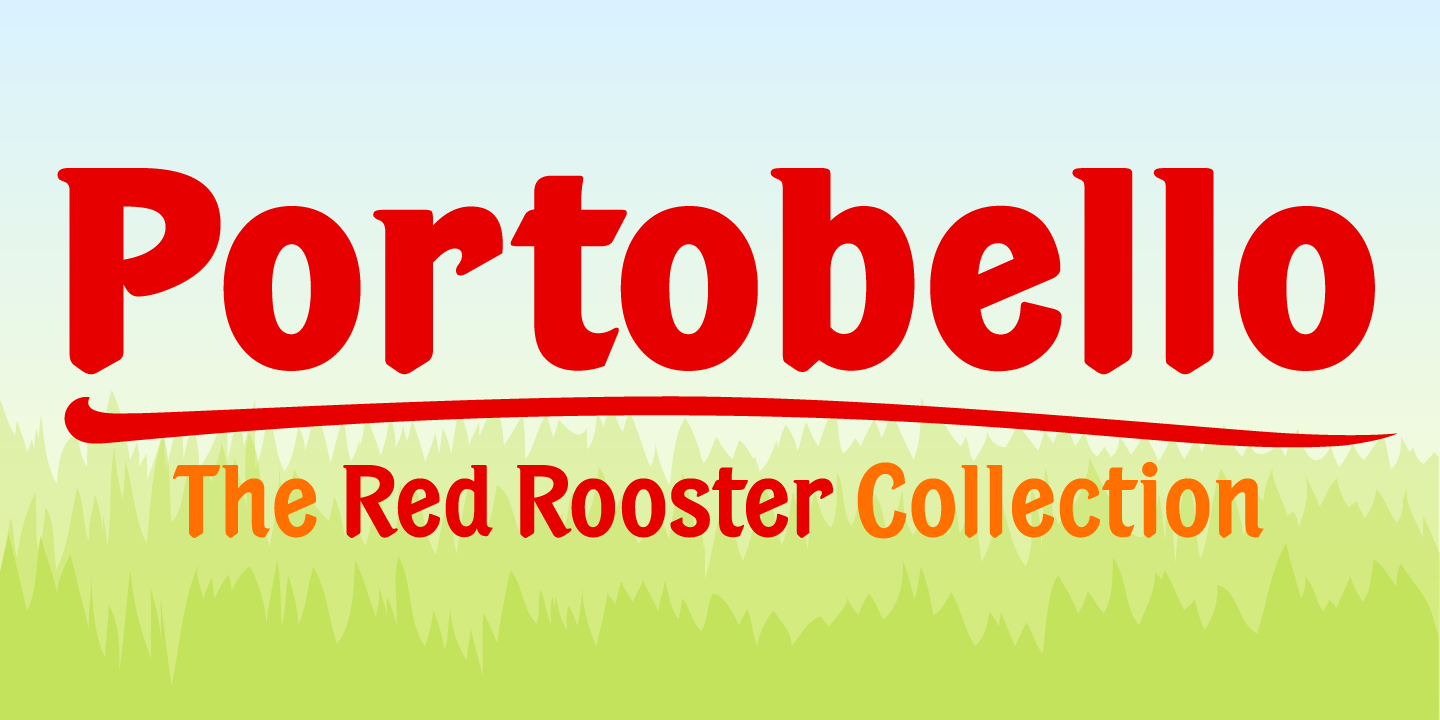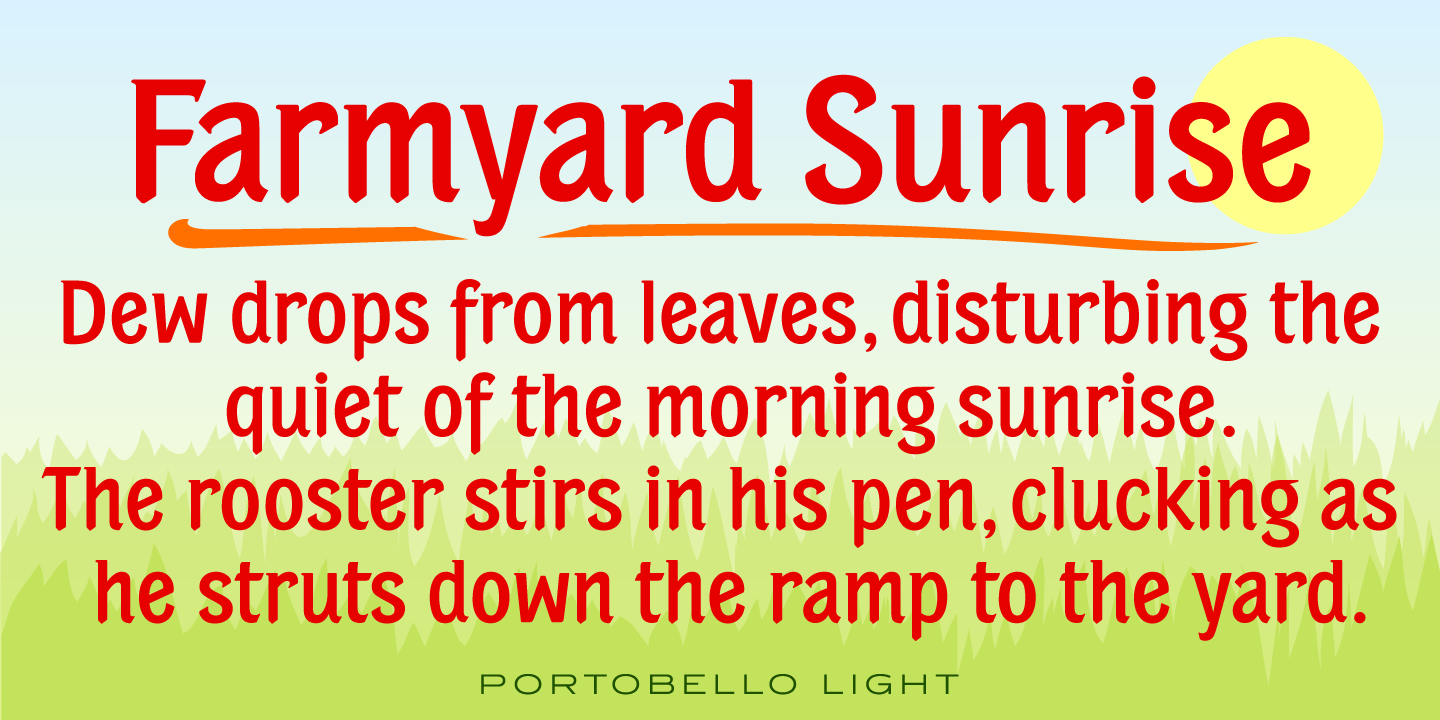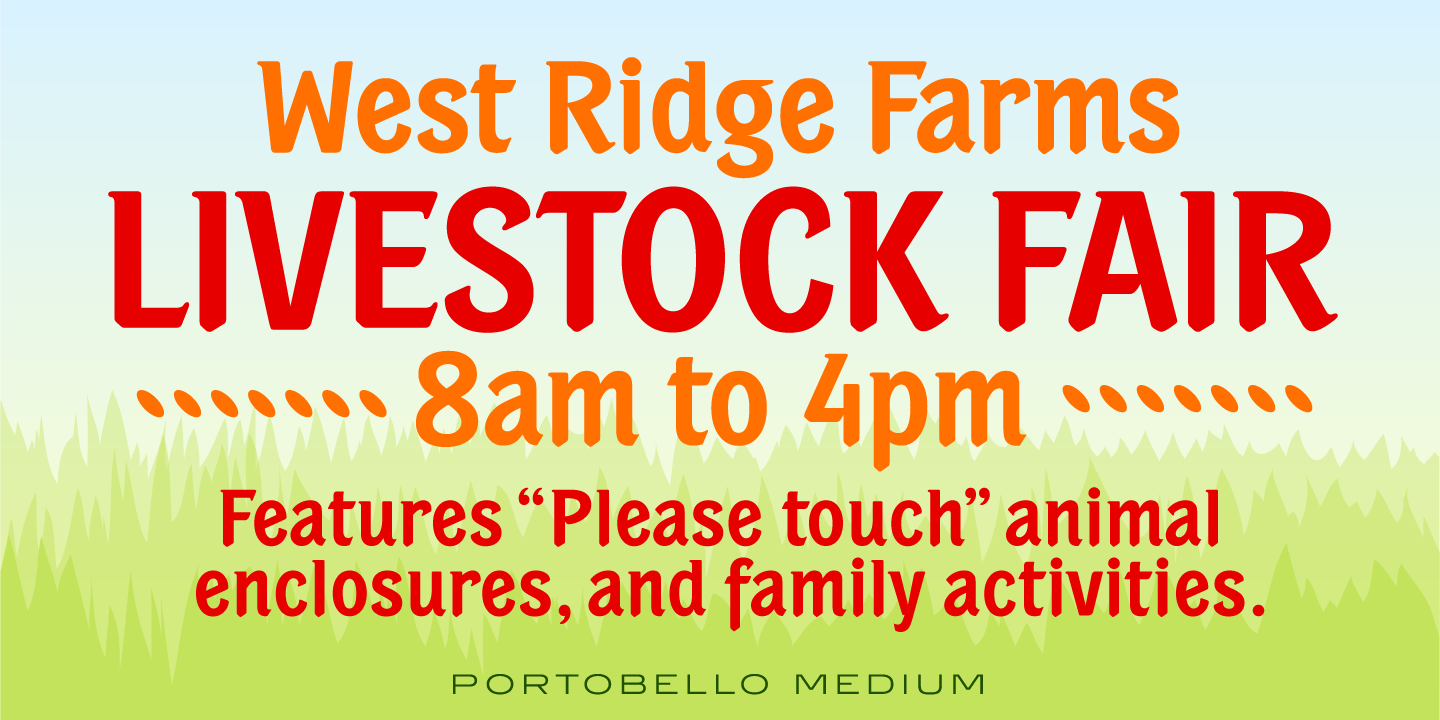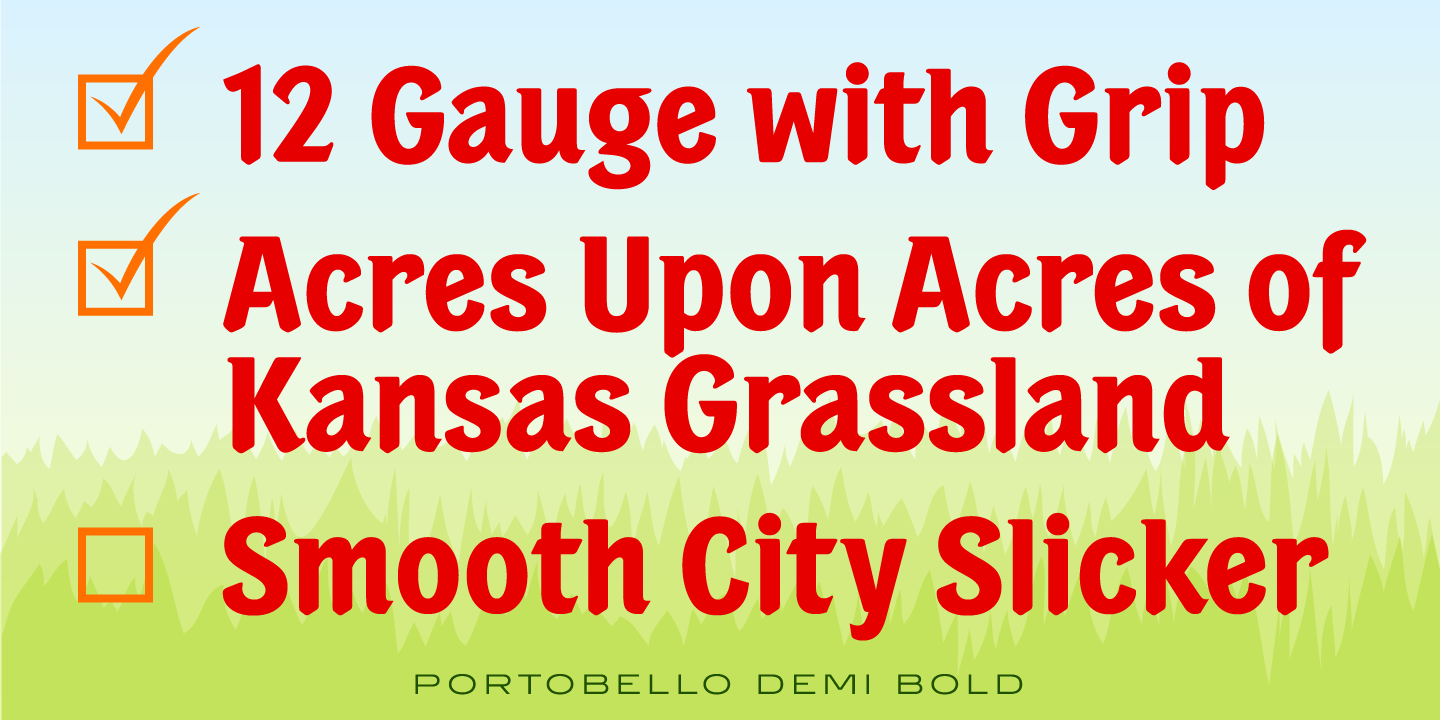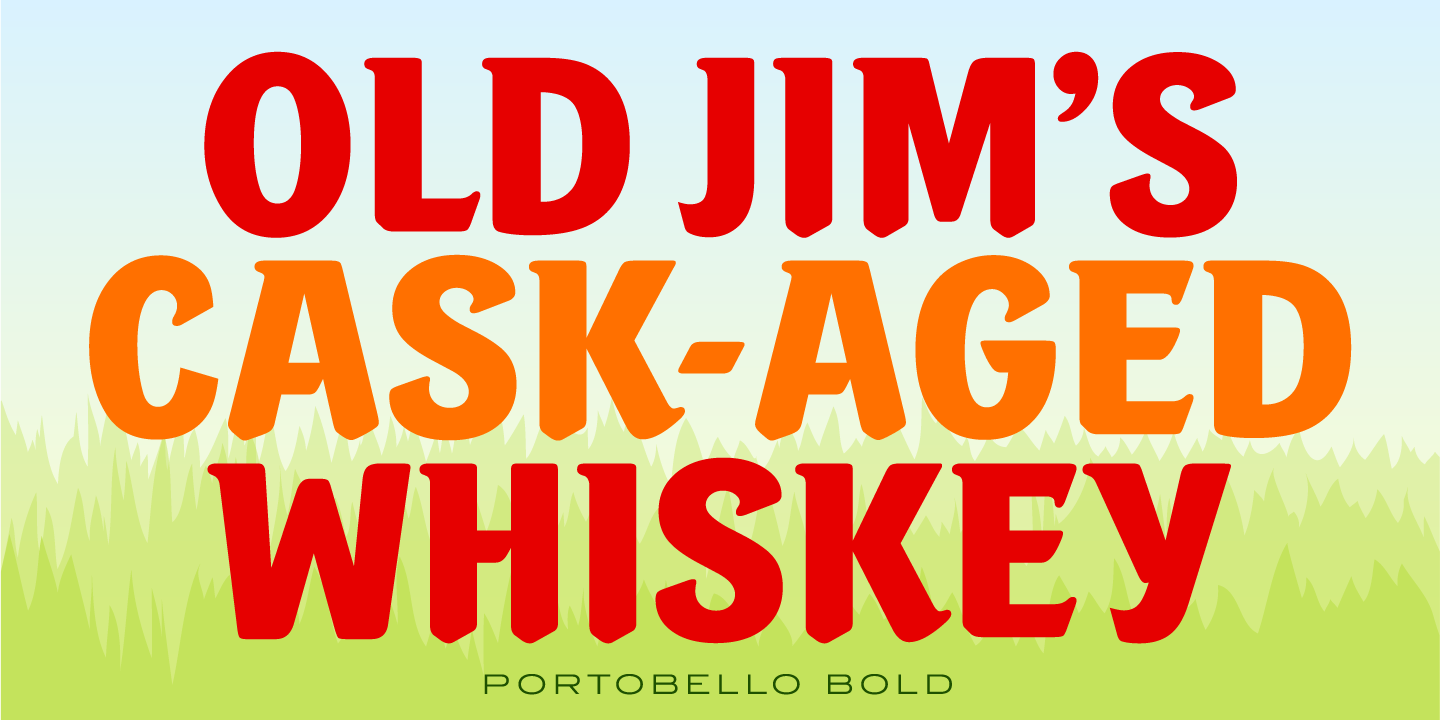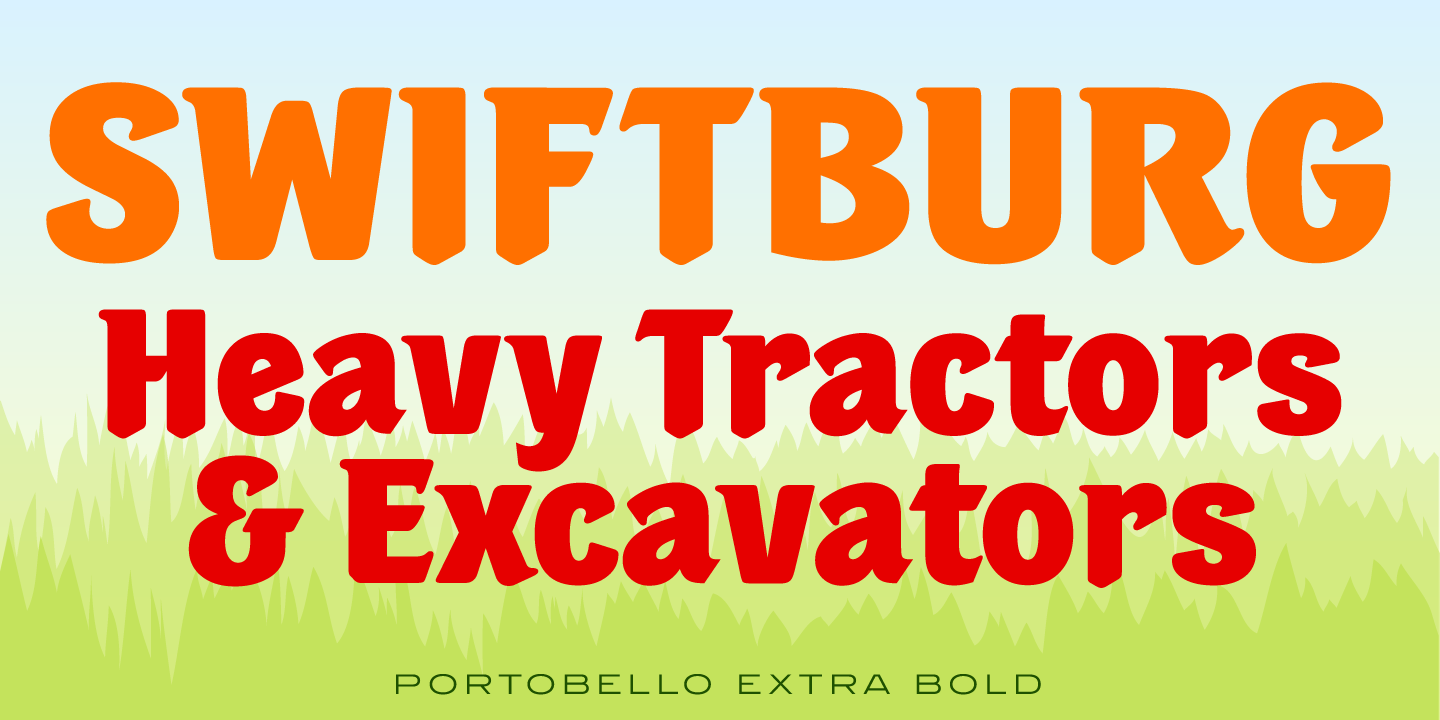
Portobello Font Family
Portobello is a unique, glyphic font family that can be classified as a sans serif typeface. Created by Steve Jackaman for ITF in 1993, it draws inspiration from Aldo Novarese’s ‘Pontecorvo’ designs from the mid-1980s. The font features hooks and pointed bottoms, giving it a strong, inscribed appearance. Regardless of the size in which Portobello is displayed, it consistently delivers exceptional cleanliness and legibility.